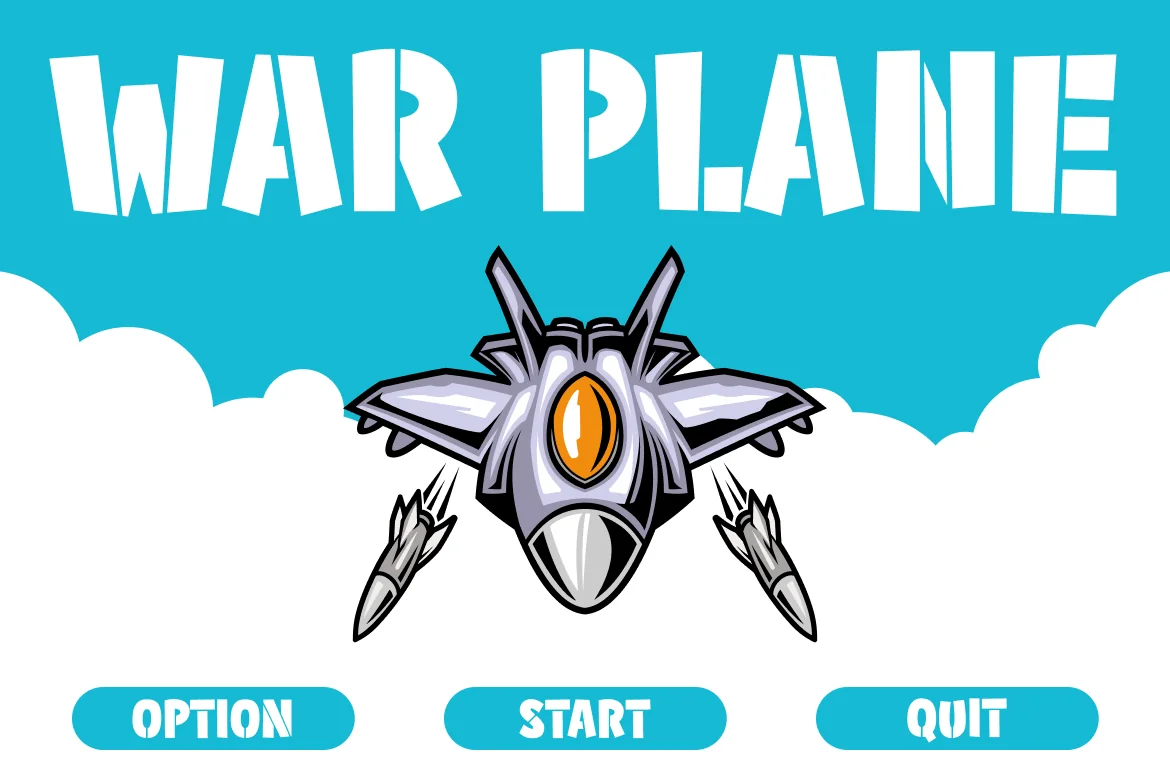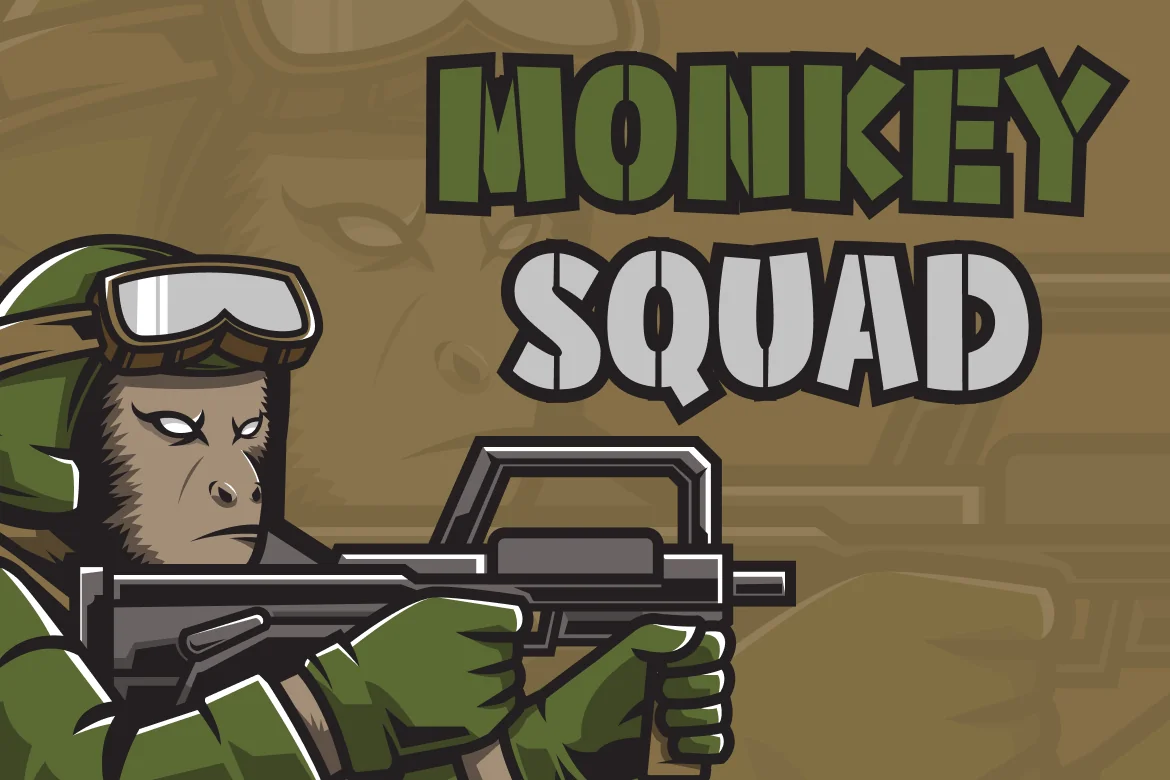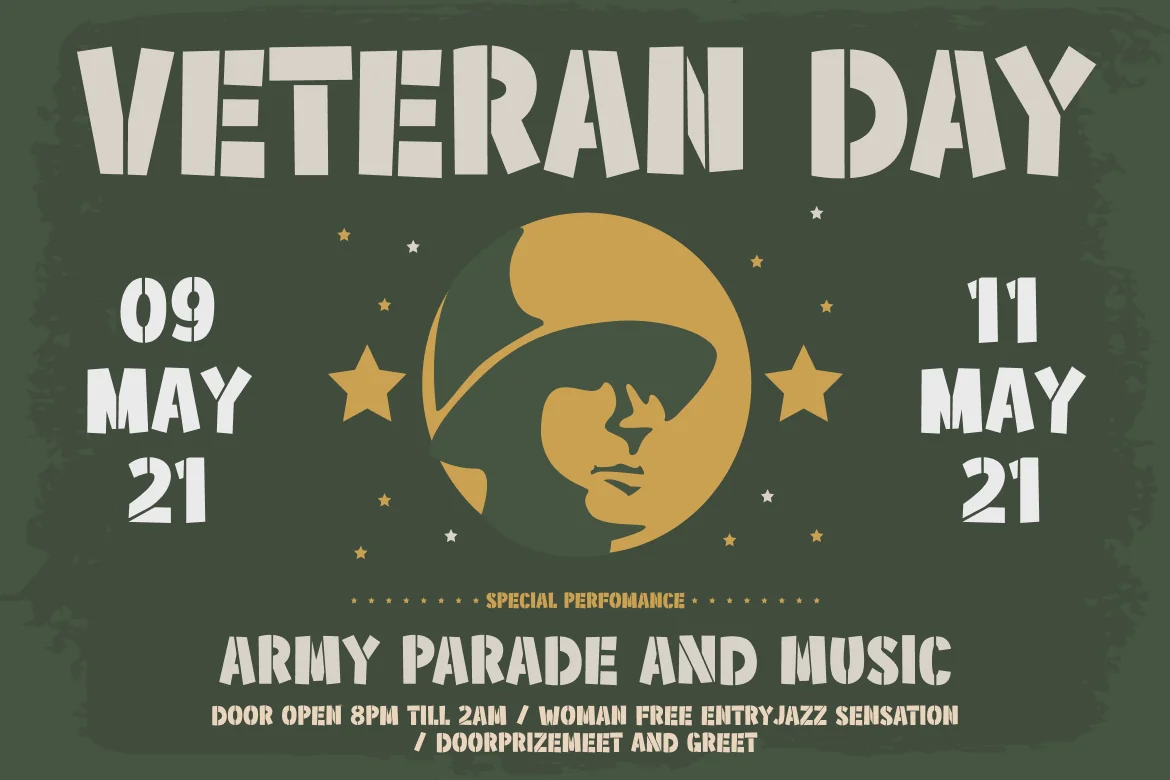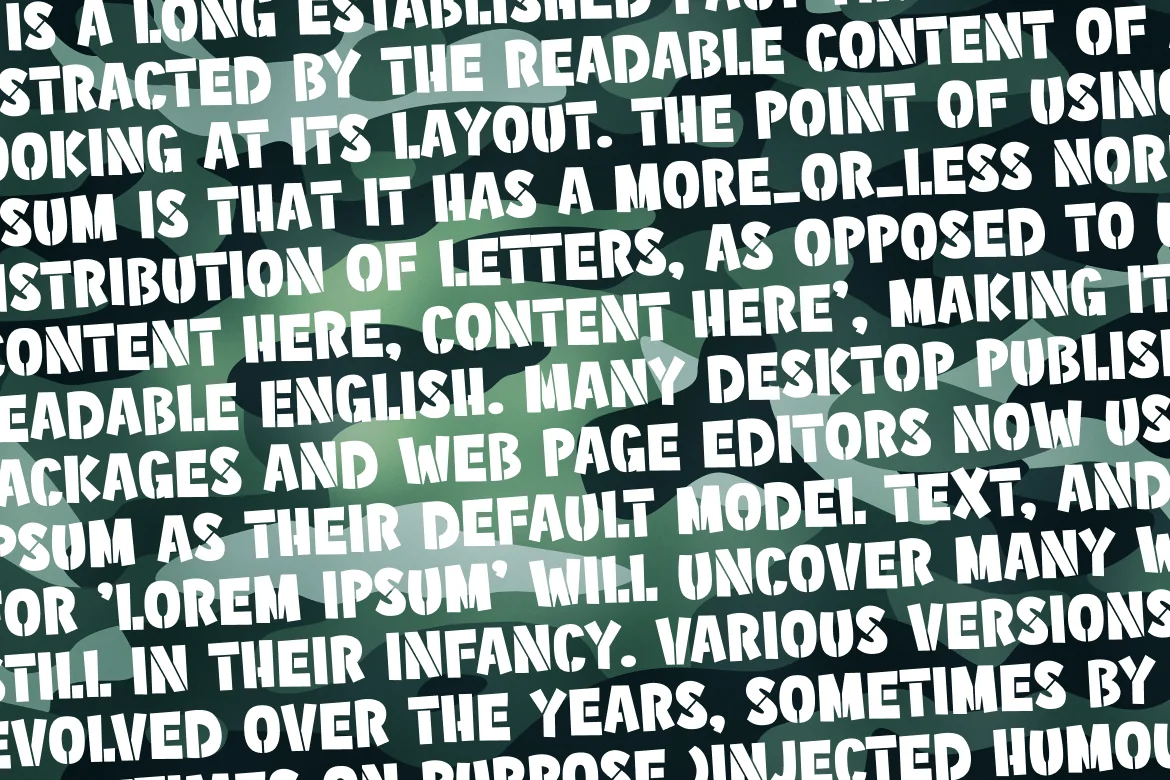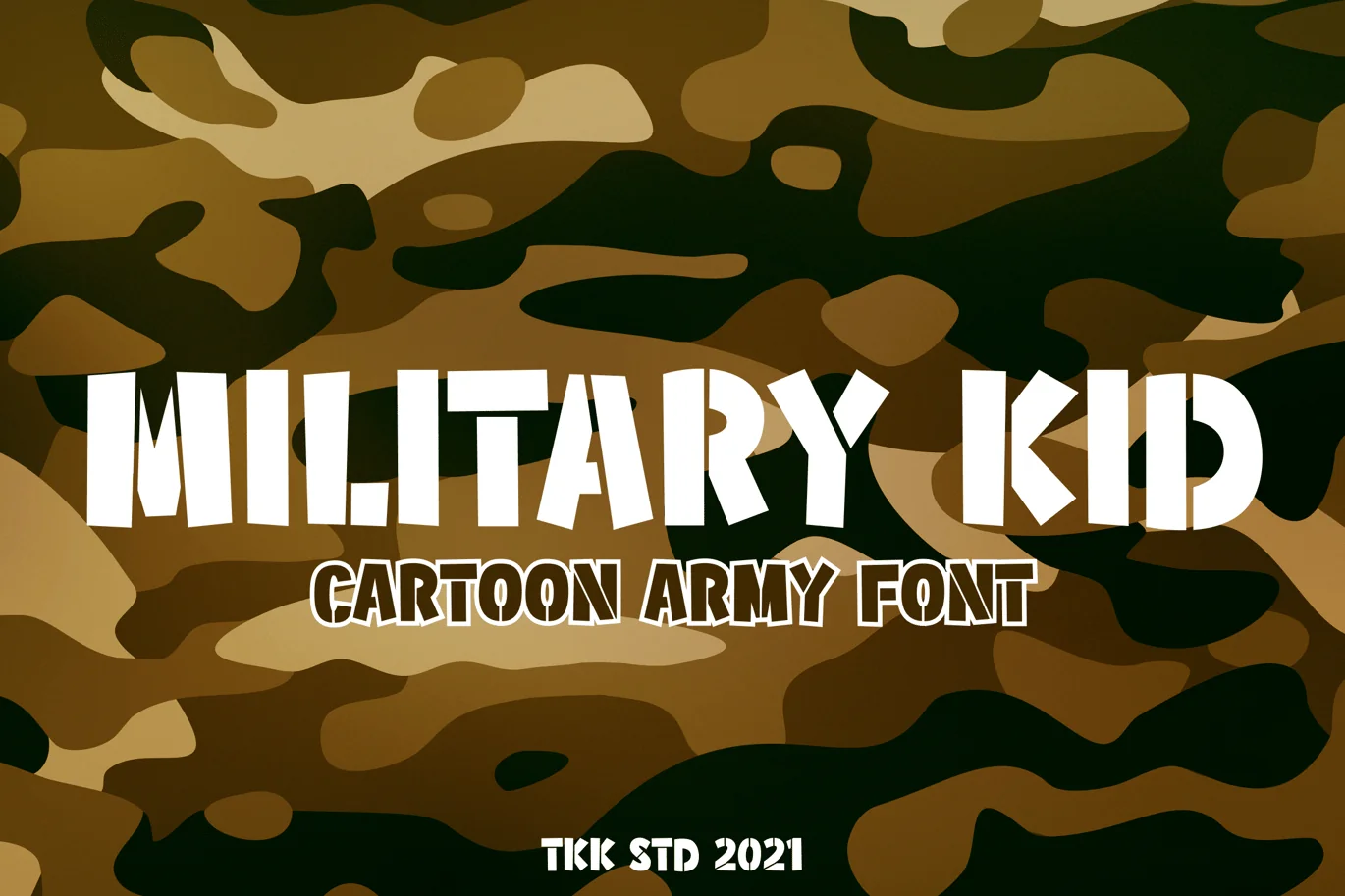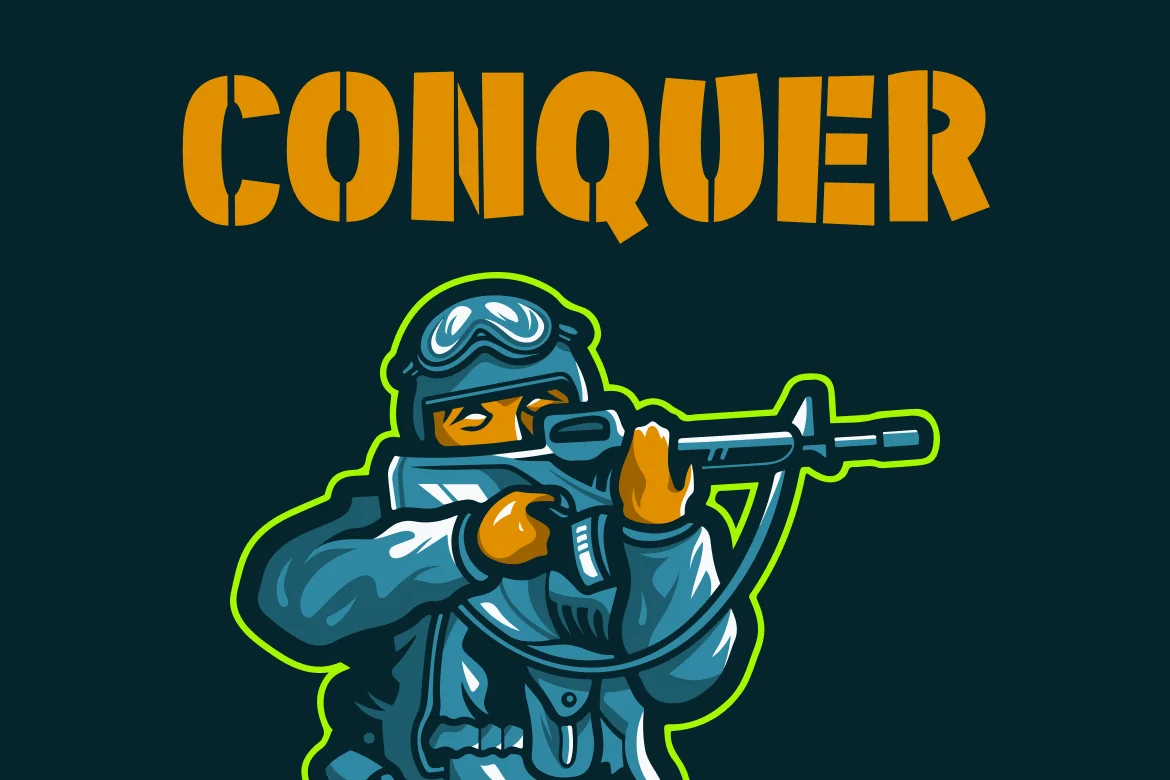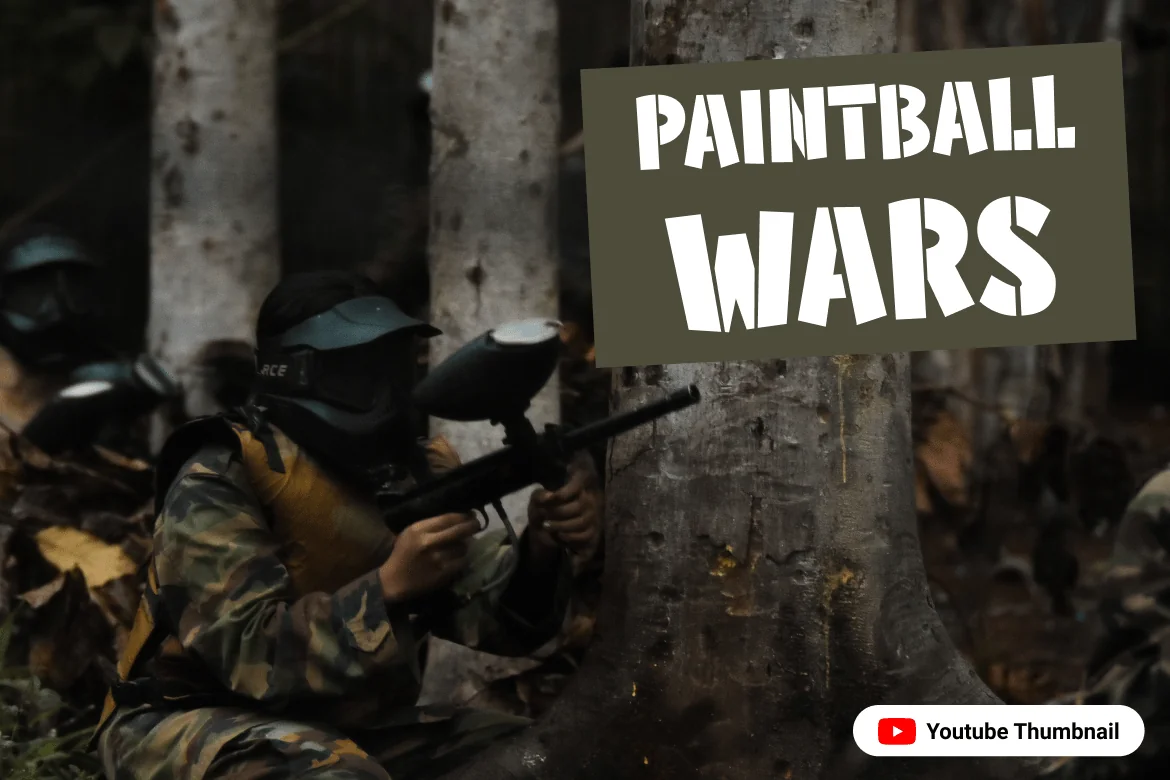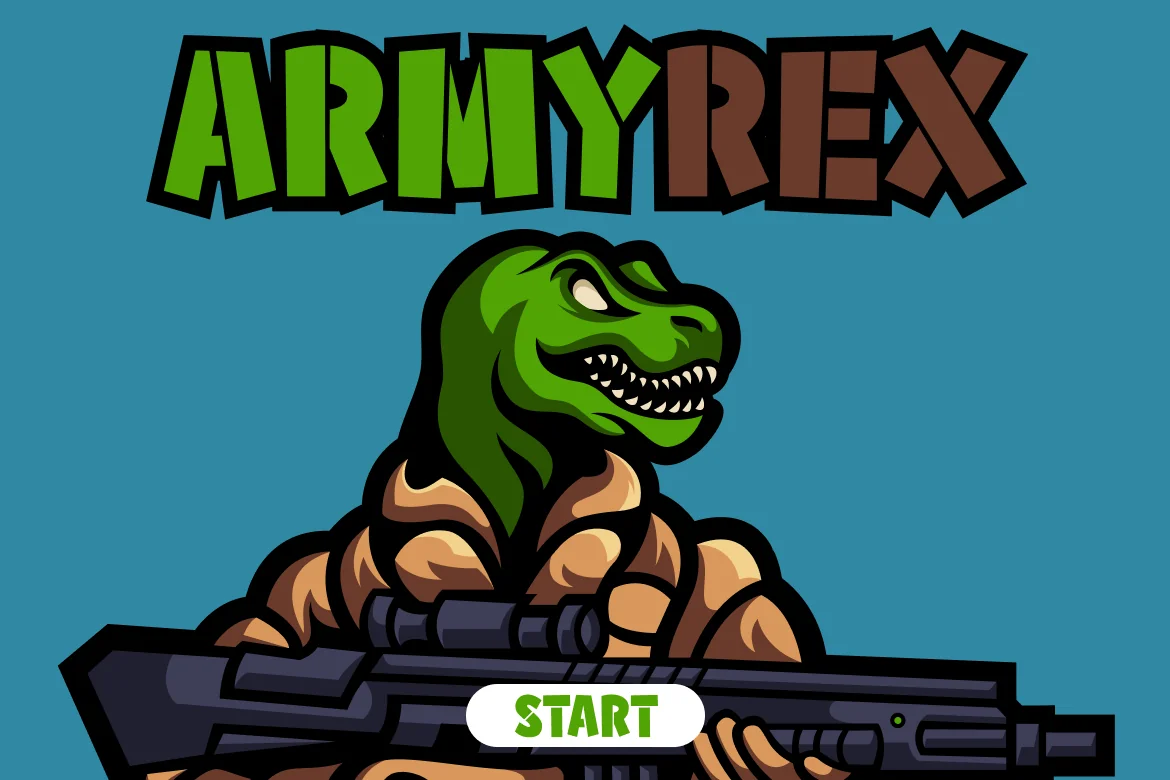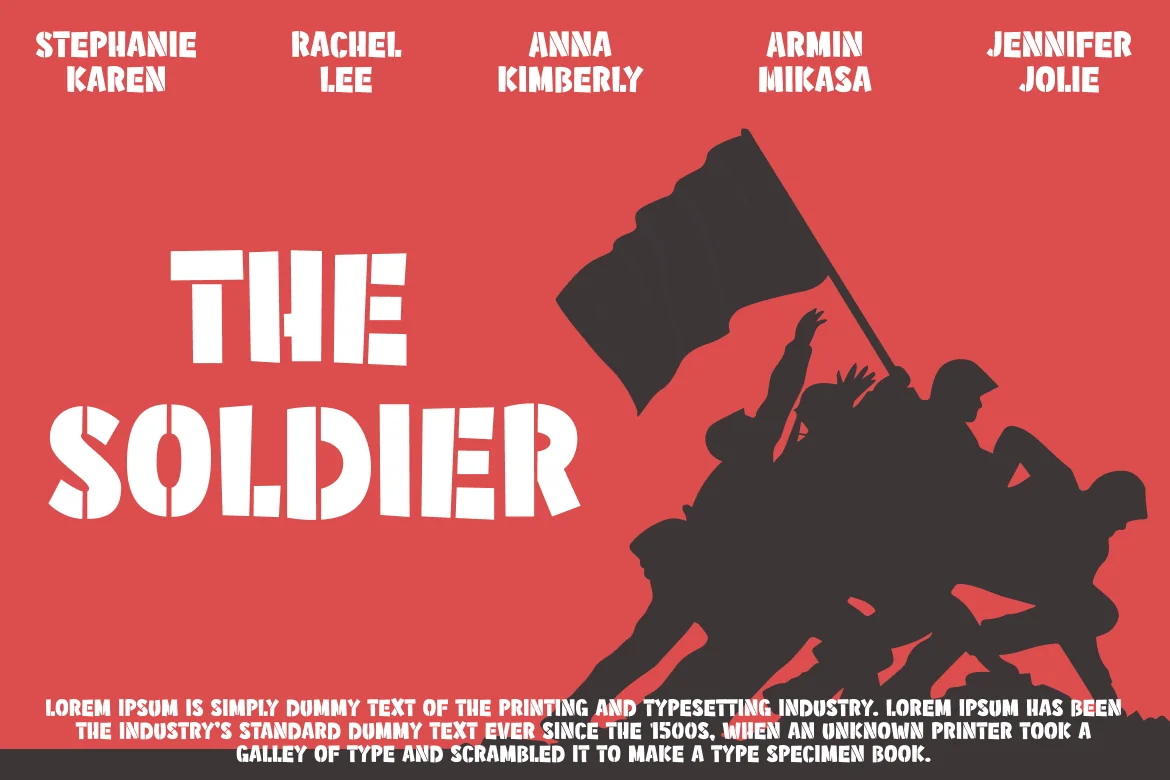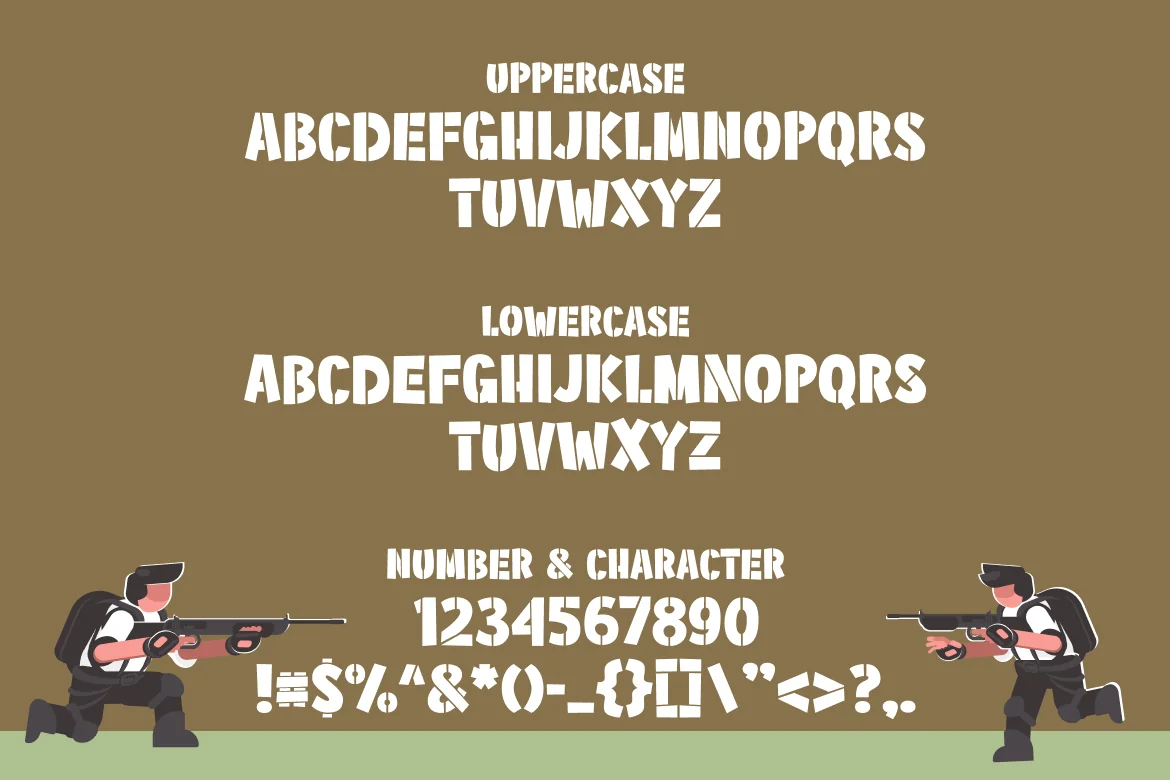
Stencil Font – Military Kid
Military Kid – Stencil Army Kids Font
A strong stencil cutout font that emphasize the military shape you took.
With a bit bouncy baseline and skew shape, it does add some childish feel in it.
Suit perfectly for online games, poster, movie title, military t-shirt/apparel, magazine, youtube covers, youtube thumbnails, social media page covers and so on…